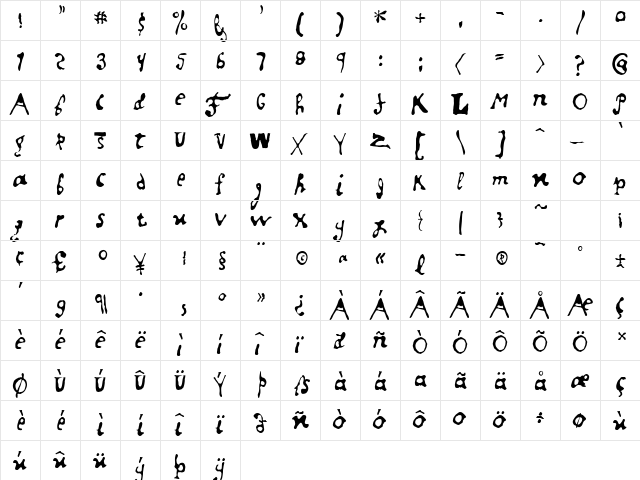
InSodiumBenzoate Regular
Design Context for InSodiumBenzoate Typeface
InSodiumBenzoate is a composed and adaptable typeface that performs quietly and consistently across a wide range of design contexts.